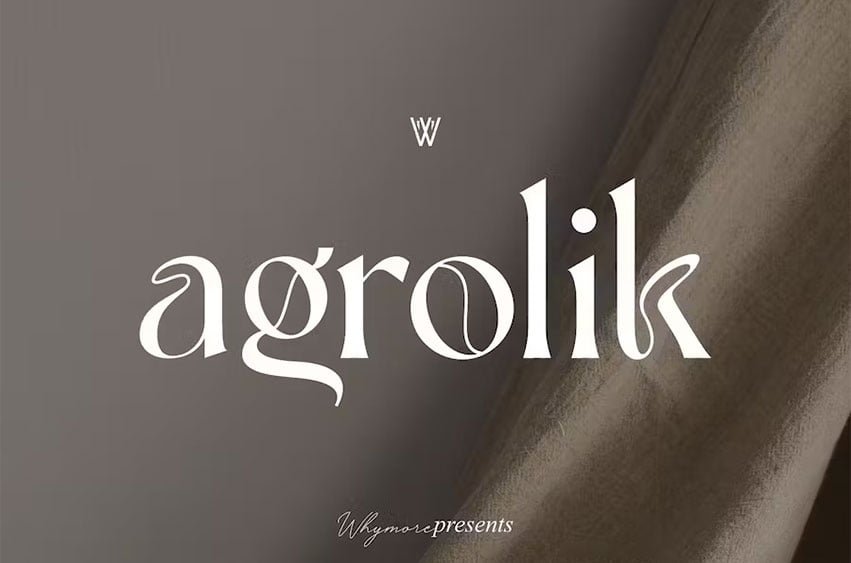
Agrolik Font Have you ever seen a font with a curve that is so unique?. Yes, that beautiful curve can also be found in the agrolik font. With many ornaments and distinctive curves adapted from the ancient letters of Javanese script.
The author wants to give the impression of the beauty of a classic typography art combined with the compatibility of design needs in every work of art or modern product, and carry the modernity itself in an agrolik font.
The underlying philosophy of this font is to create a font work with serif fonts by prioritising creativity to modify shapes in the form of unique shapes on each letter.